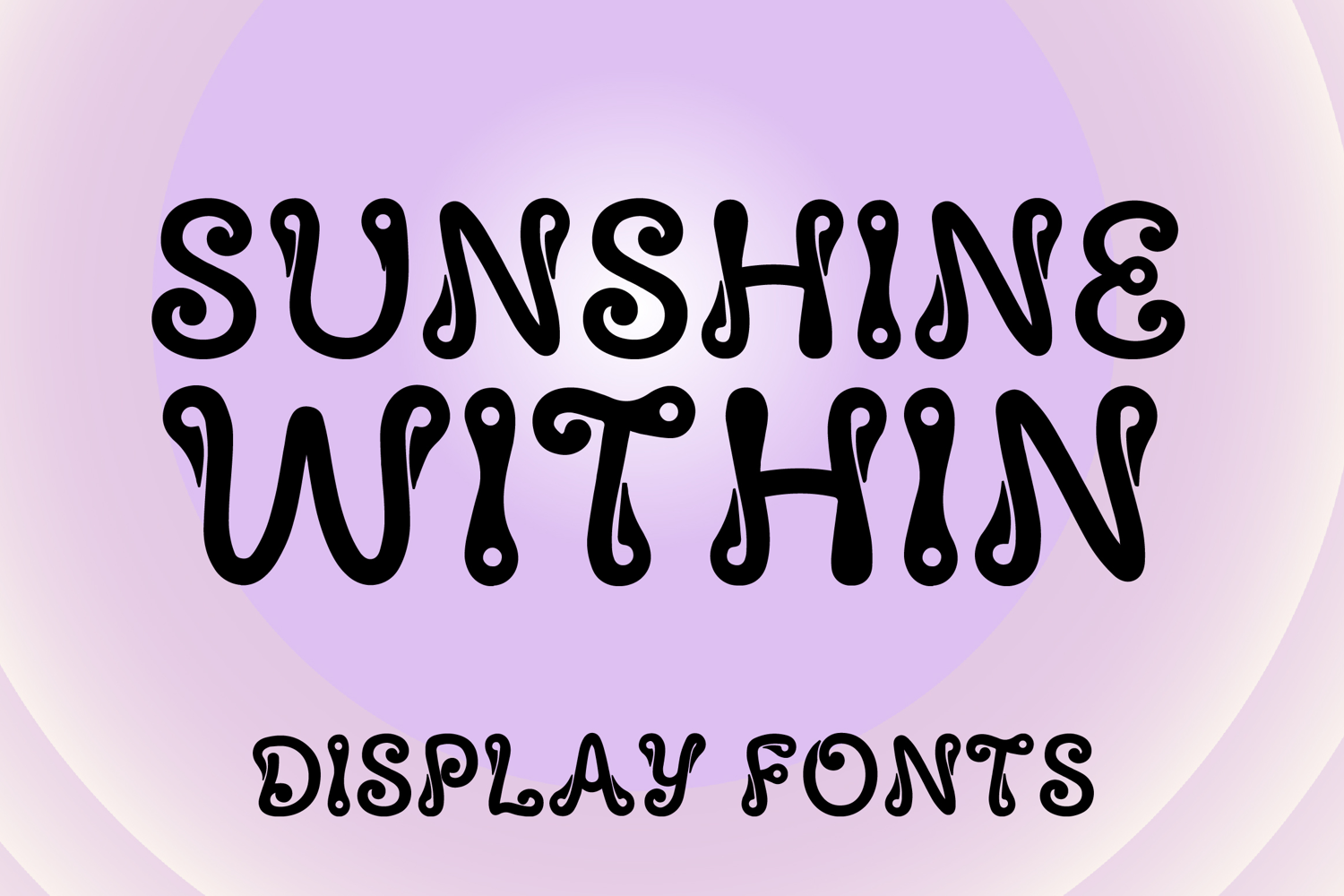
SUNSHINE WITHIN
SUNSHINE WITHIN is a whimsical decorative display font with a playful handcrafted style and cheerful vintage charm. Its uppercase letterforms feature tall flowing shapes, rounded strokes, and distinctive droplet-like curls that create a fun, lively, and eye-catching personality. Designed with uppercase letters A–Z and numbers 0–9, SUNSHINE WITHIN is perfect for branding, posters, packaging, invitations, quotes, social media graphics, and creative projects that need a joyful and memorable statement.